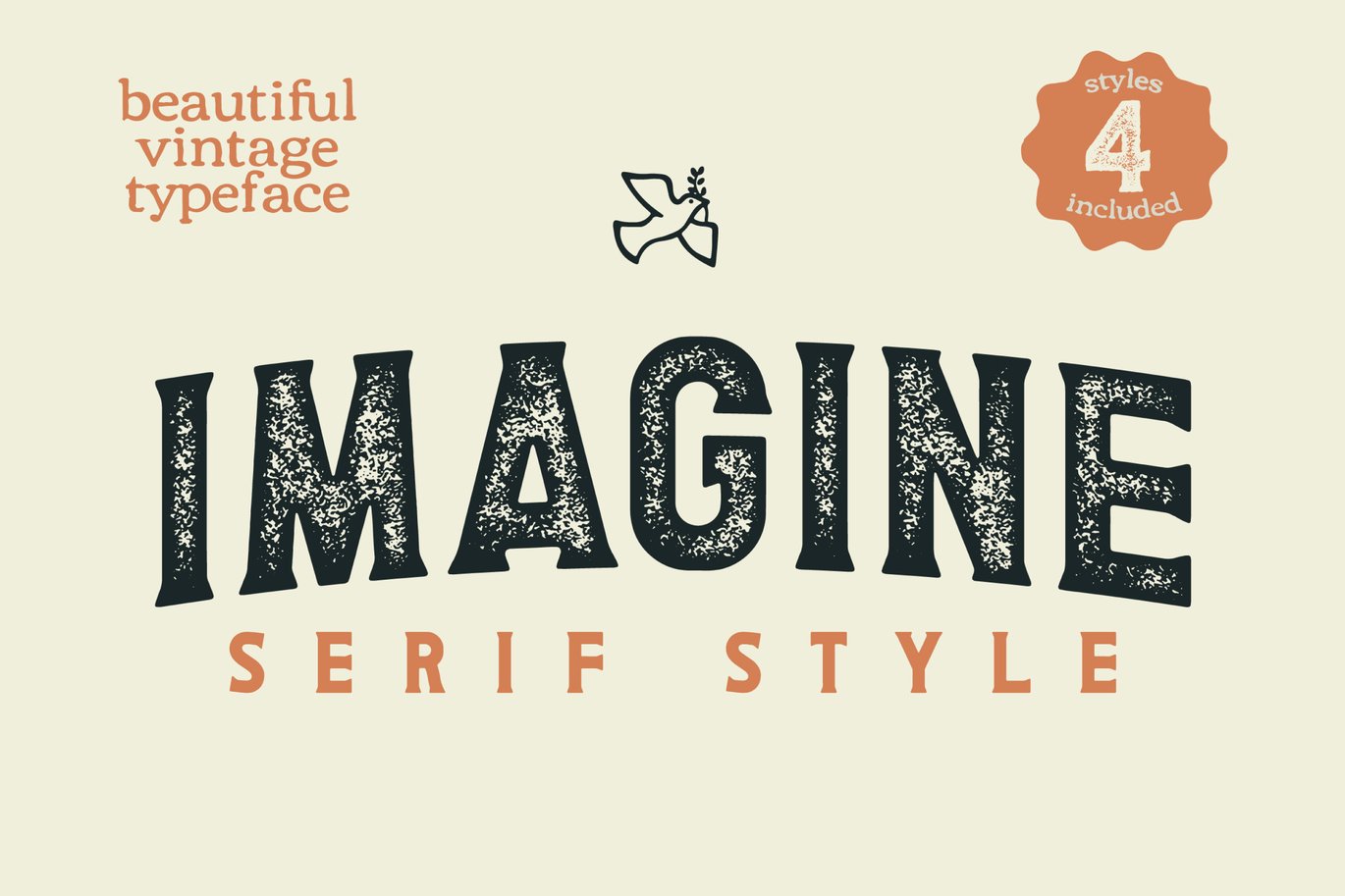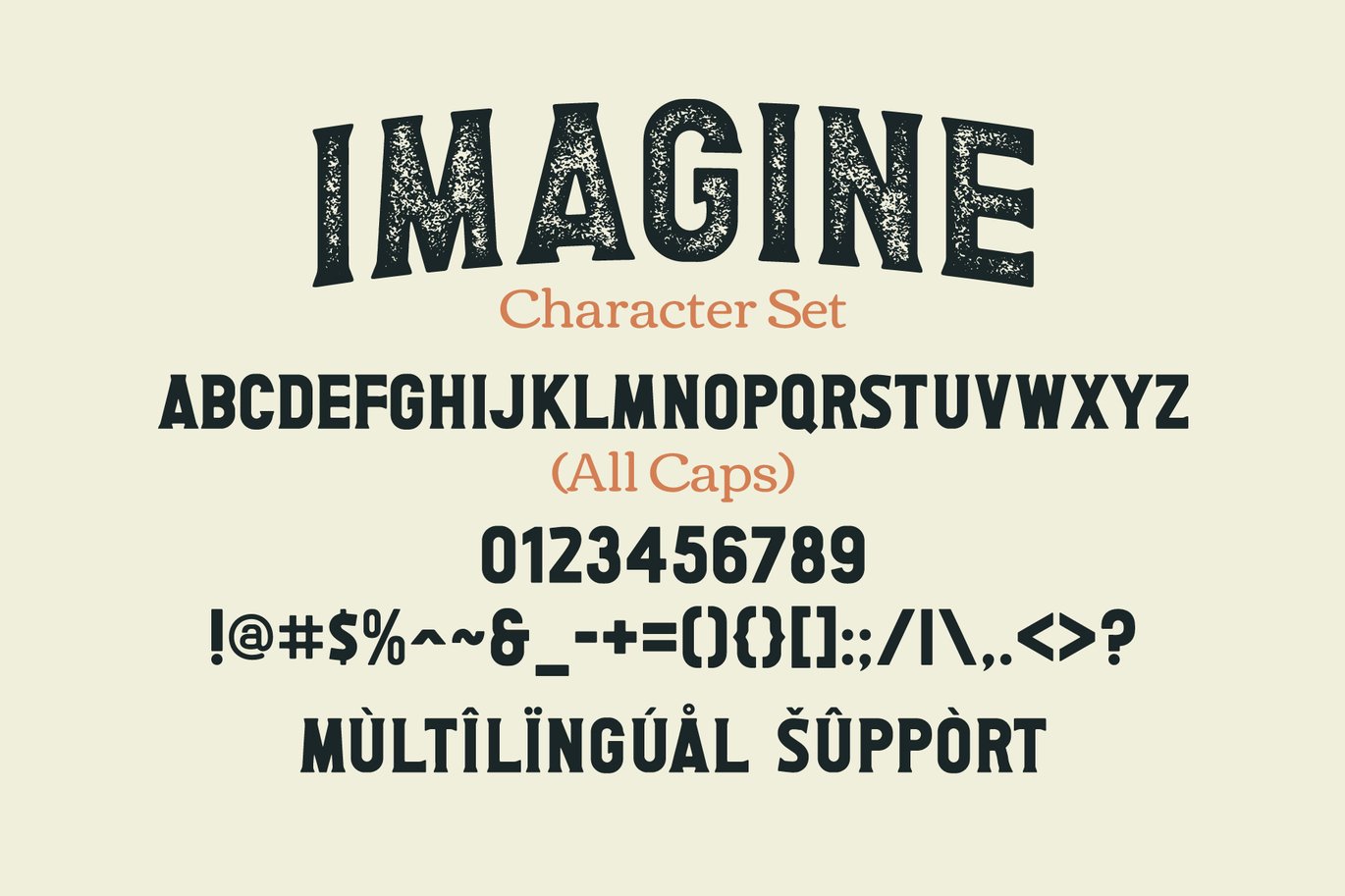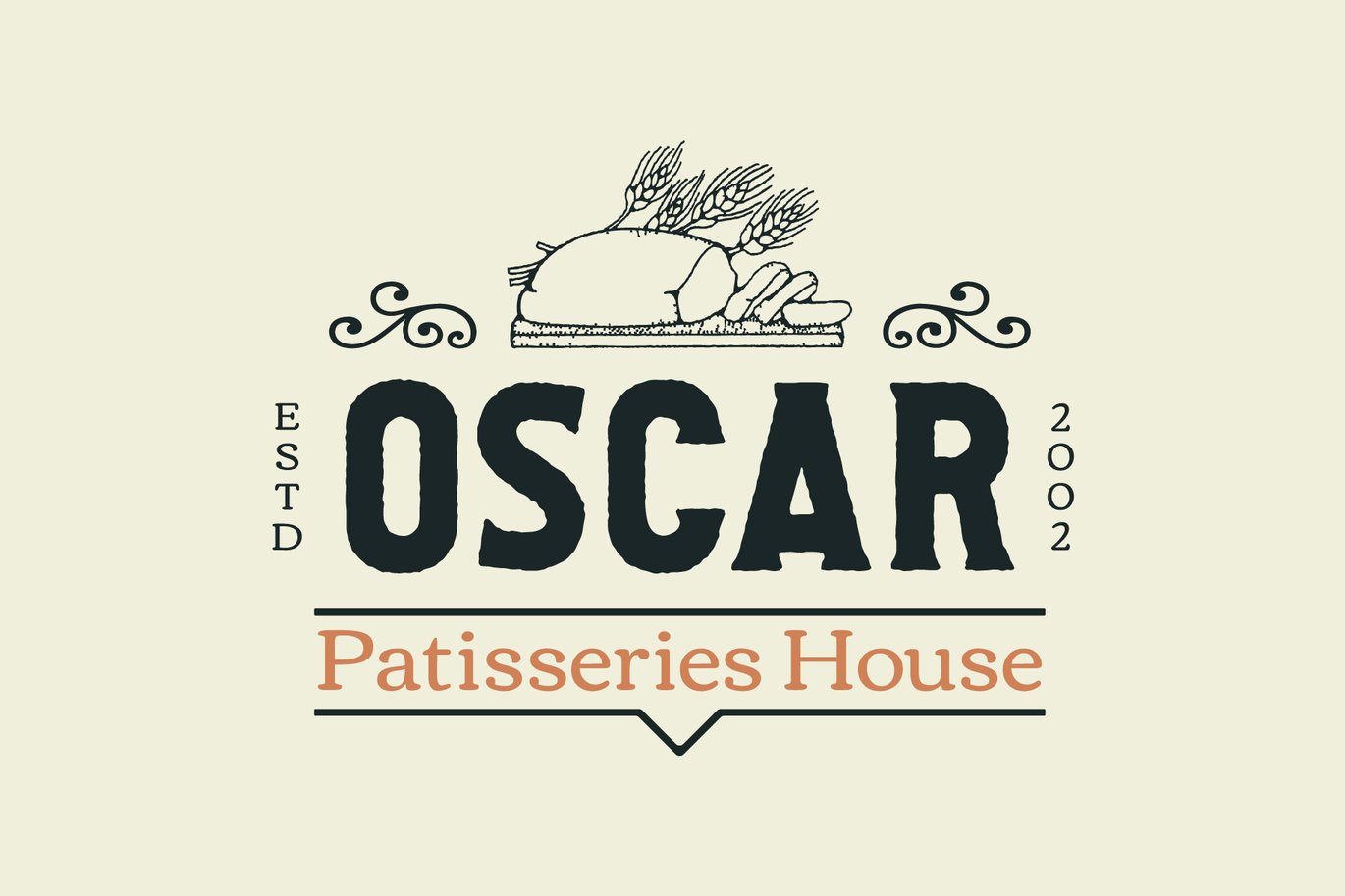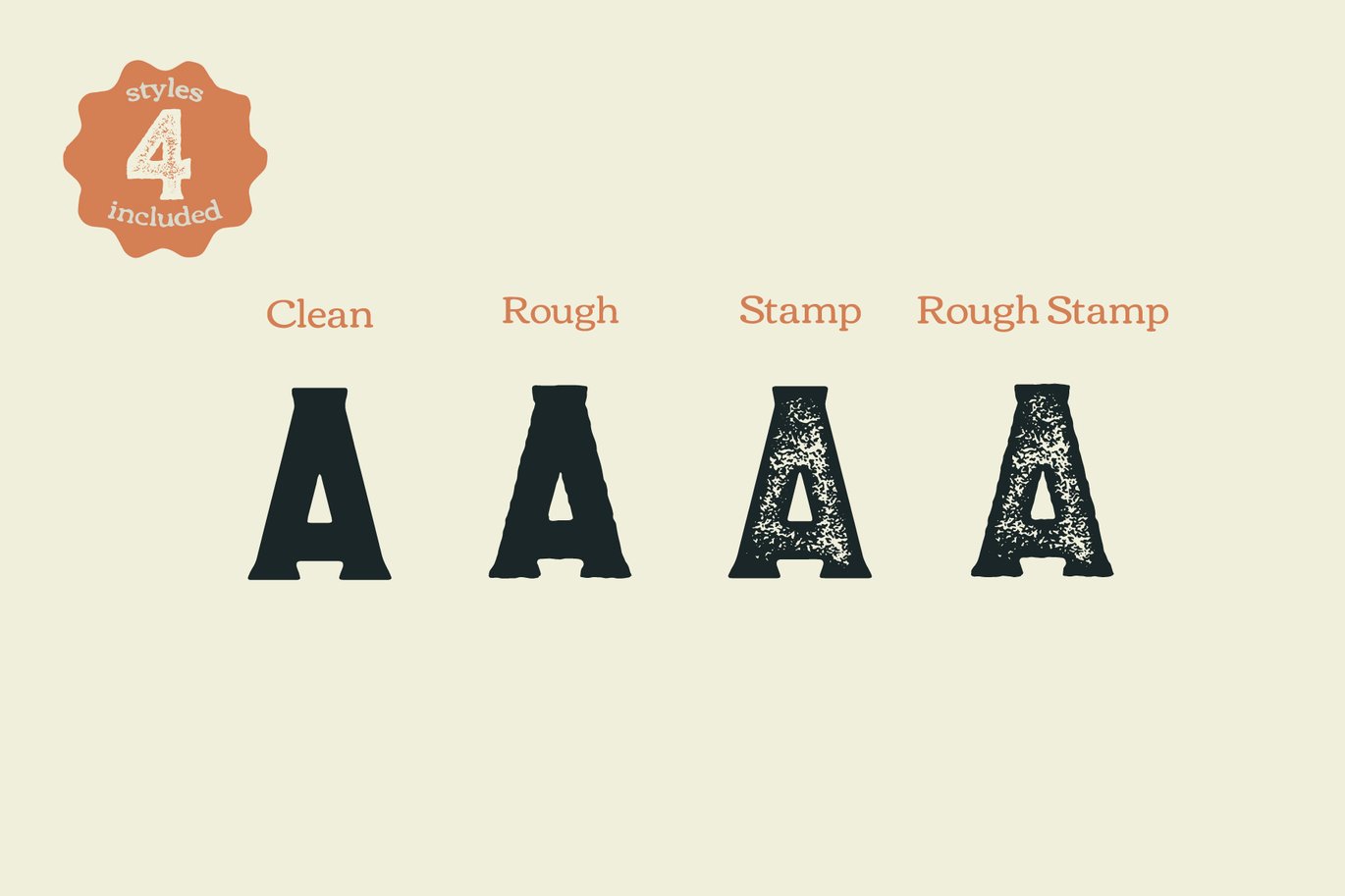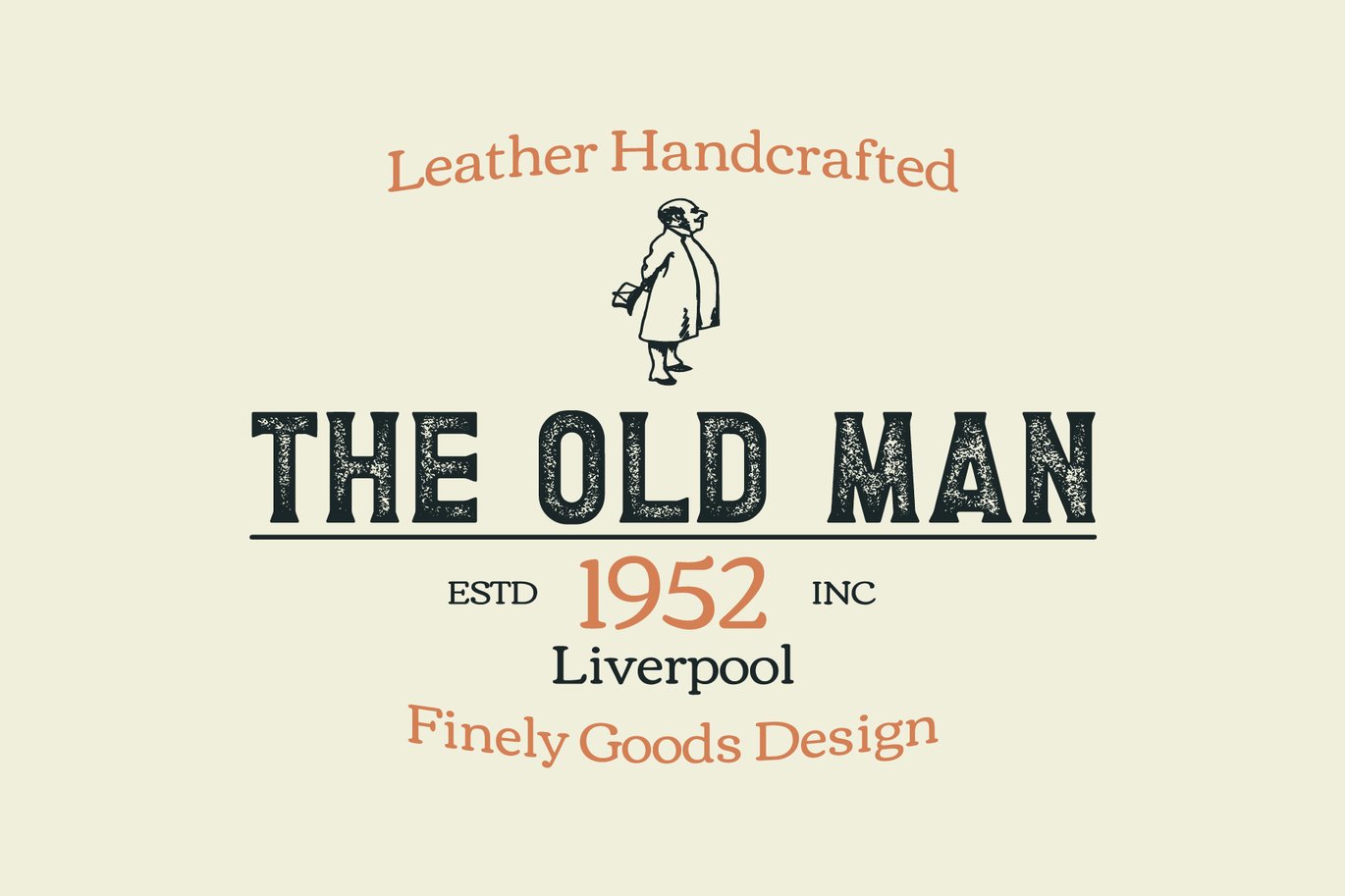
Imagine Serif Font Vol.2
IMAGINE is a classic serif font with a cool and unique look. This typeface is perfect for branding projects, logos, labels, product packaging, and more. Imagine Serif is a serif based typeface with ALLCAPS characters and includes 4 styles (regular, rough, stamp, rough stamp). This font is only serif style, if you want sans type edition please go to our profile.